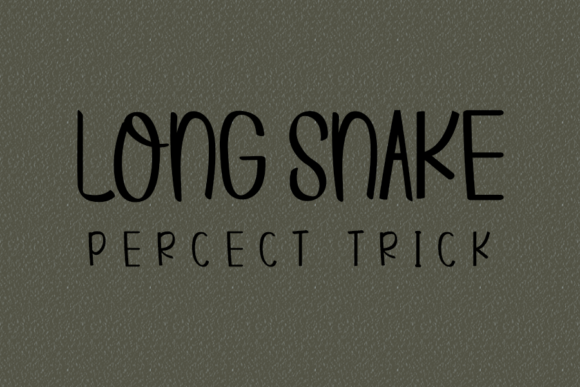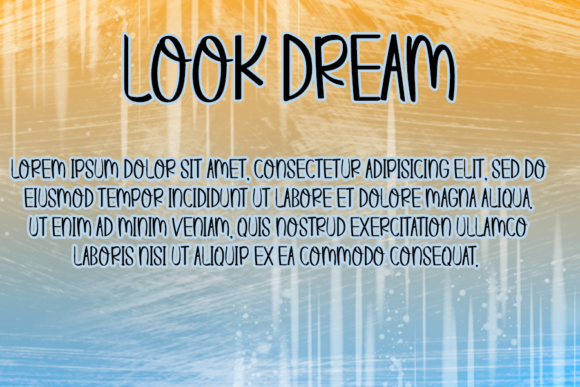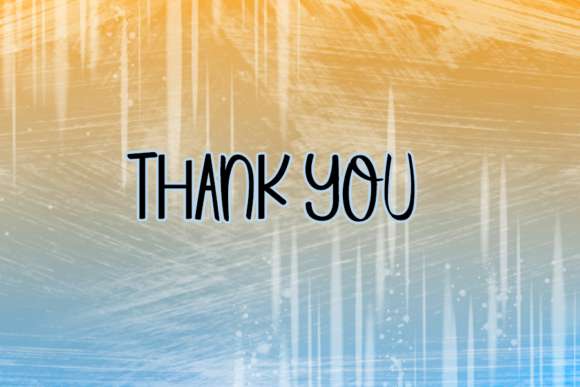
Care Snowbie Font
About Care Snowbie Font
Care Snowbie is a relaxed handwritten font, designed with an incredibly friendly feel. Clean and a little bit quirky, this font is the perfect fit for all of your logos, branding, social media, and crafty DIY projects.